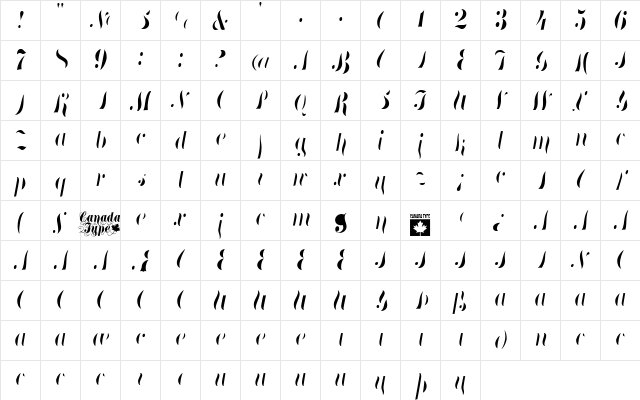
Treasury System Inline Regular
Design Context for Treasury System Inline Typeface
Treasury System Inline is built around its visual character rather than neutral utility — its distinctive forms are designed to make an impression at display sizes.
Font Pairing: Pair with a clean neutral sans-serif for body copy to let Treasury System Inline's character lead without overwhelming the composition.
Pro Tip: Use Treasury System Inline exclusively at display sizes — it was designed to be seen, not read at length. Let a neutral companion handle body copy.